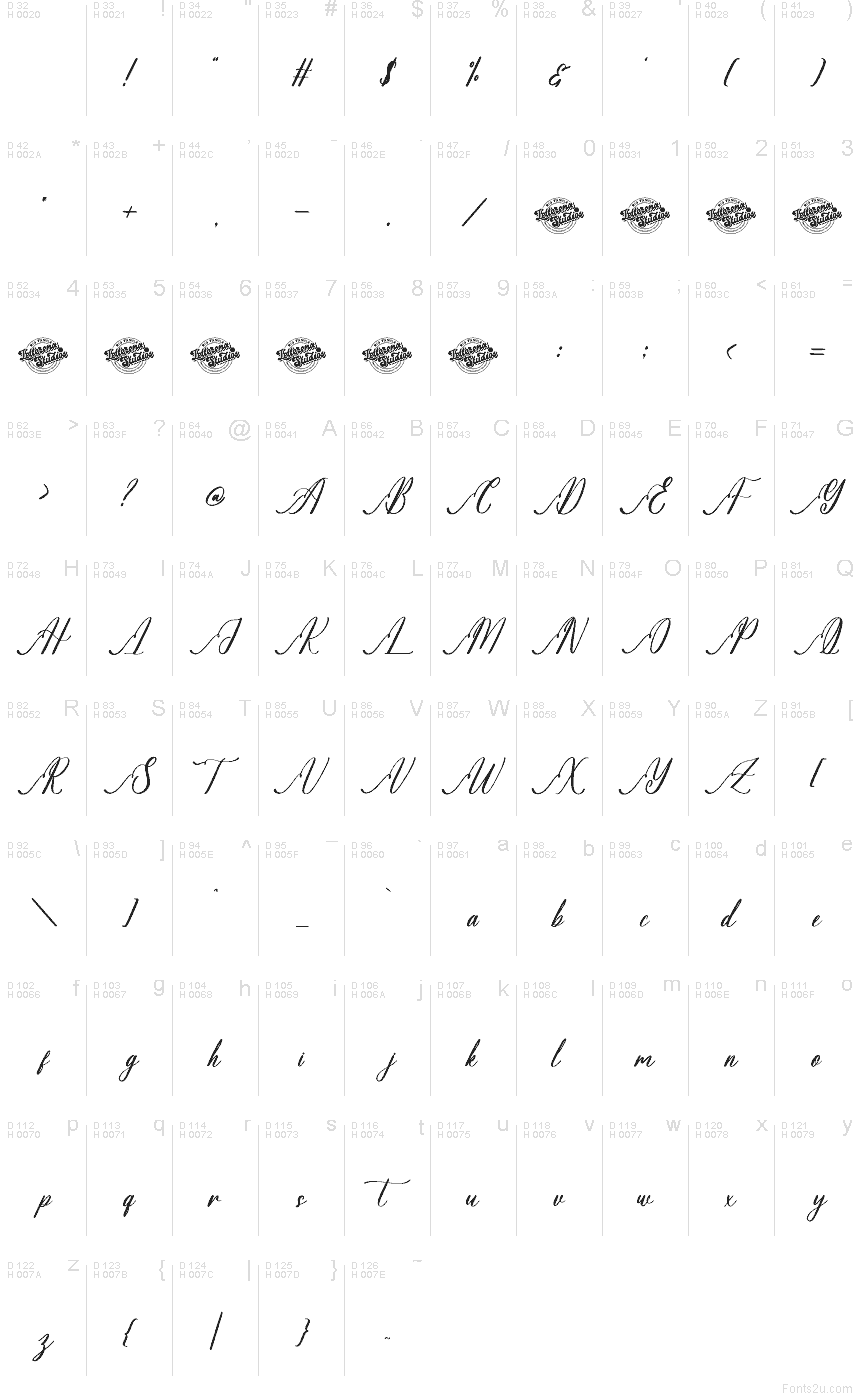
Sovinhaya Dictaselin font by Letterena Studios is a free calligraphy font that feels like ink swept across thick cotton paper. Long, swooping entries and exits connect each letter in a graceful flow, while the slender strokes and airy spacing keep it from ever feeling heavy or cluttered. There’s a quiet drama to its curves that instantly suggests romance, couture, and handwritten keepsakes.
Using Sovinhaya Dictaselin, your text naturally shines on wedding invitations, save-the-dates, luxury packaging, boutique logos, social media quotes, and elegant signage. This free font thrives at larger sizes where its fine loops and sweeping tails can really breathe. Pair it with a clean, light sans serif for body copy to balance the ornate script and keep layouts modern and readable.